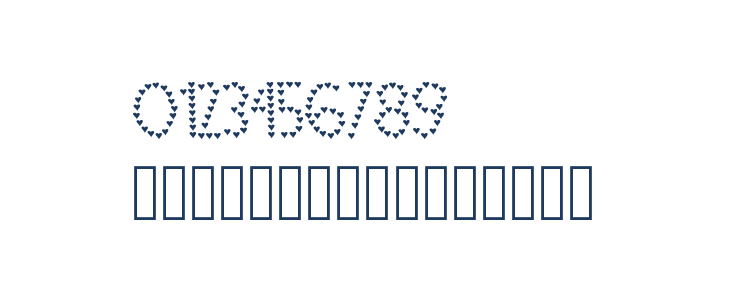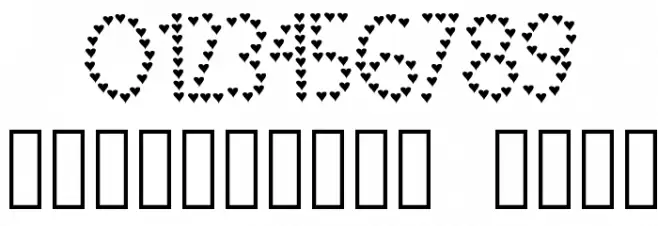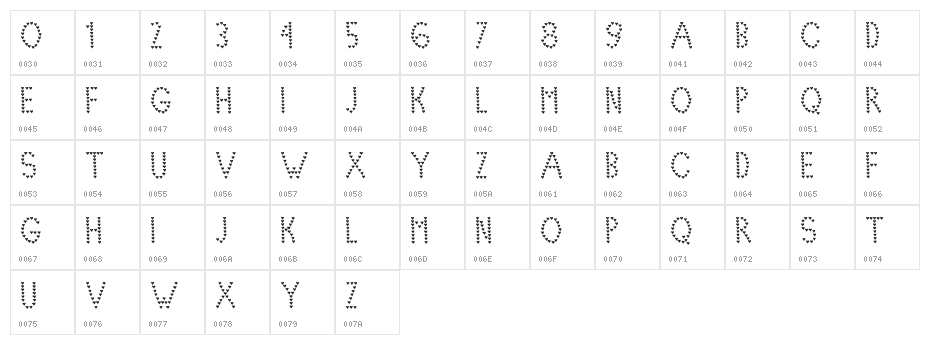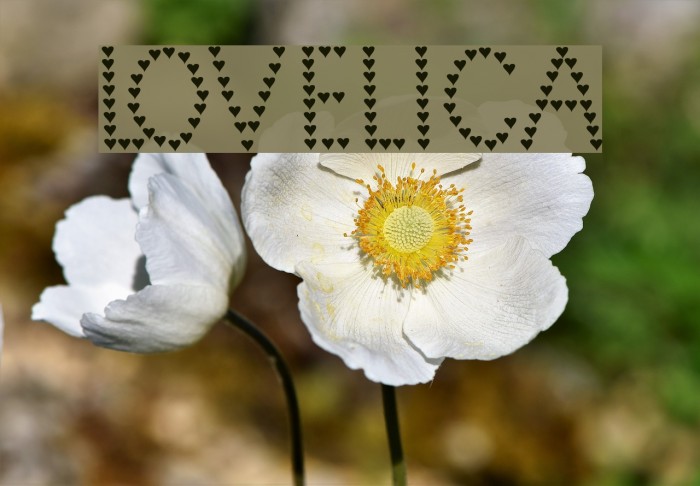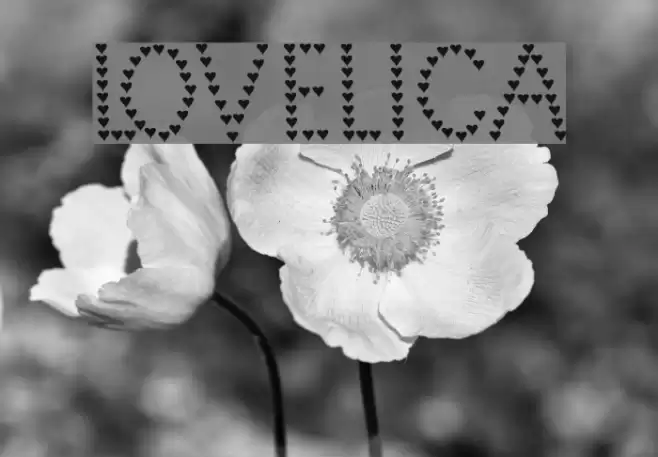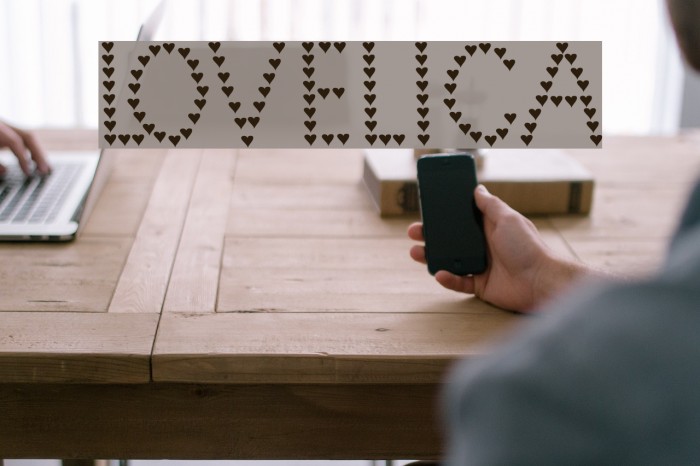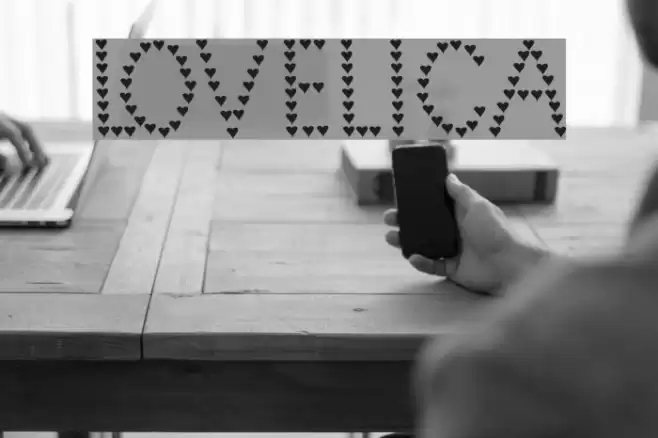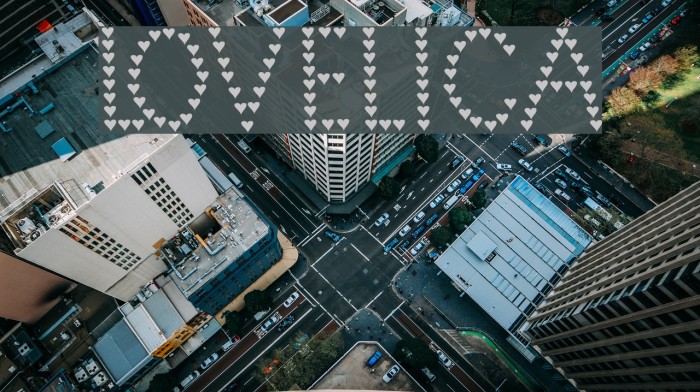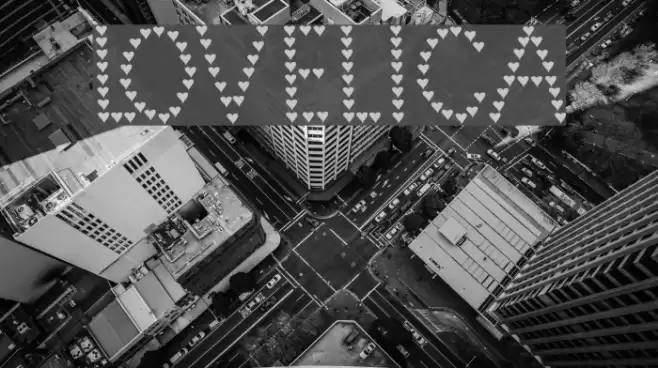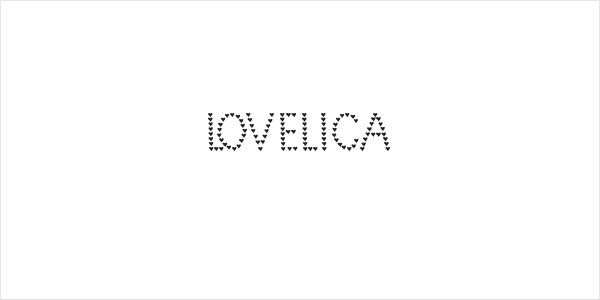
Lovelica Font
Lovelica Description
This font features a unique and playful design where each character is composed of small heart shapes. The letters and numbers are formed by arranging these hearts in a way that maintains readability while adding a decorative touch. The overall appearance is whimsical and romantic, making it ideal for projects that require a touch of charm and affection. The uppercase and lowercase letters are consistent in style, and the numbers follow the same heart-patterned theme. The special characters are not clearly defined, which may limit the font's functionality in certain contexts.
| Proposed Projects | Ideal for Valentine's Day cards, wedding invitations, love-themed posters, and playful branding. |